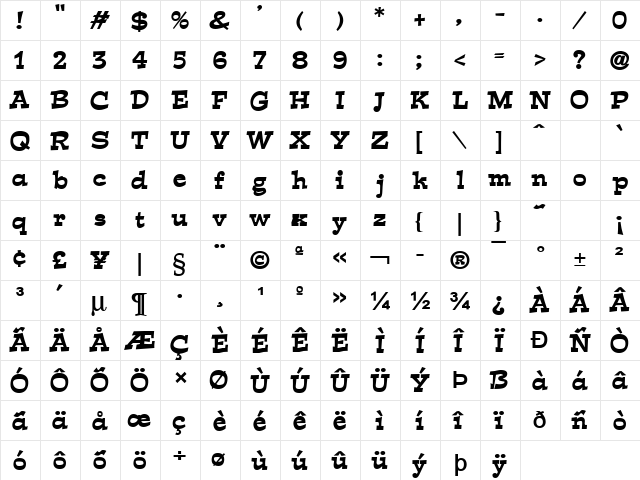
Expose Bold
Design Context for Expose Typeface
Expose offers clean, dependable letterforms without strong stylistic allegiance, making it a practical choice for designers who need flexibility. The heavy weight commands attention and anchors typographic hierarchies.